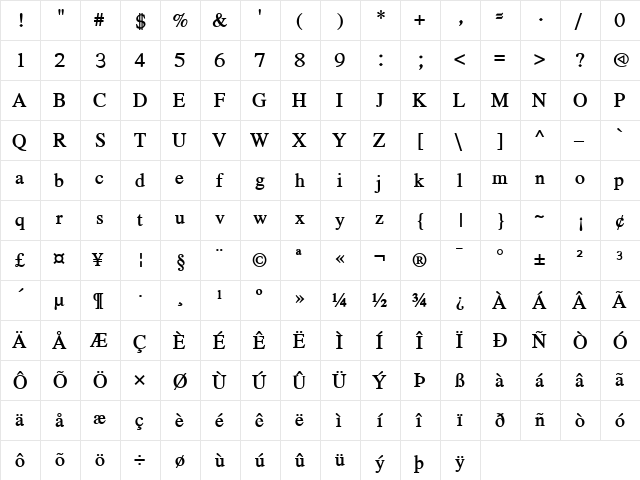
Masinahikan SemiBold
| Foundry | Chris Harvey (languagegeek.com) |
| Designer | Chris Harvey |
Design Context for Masinahikan Typeface
Masinahikan offers clean, dependable letterforms without strong stylistic allegiance, making it a practical choice for designers who need flexibility. Its bold stroke weight gives it real presence on the page.